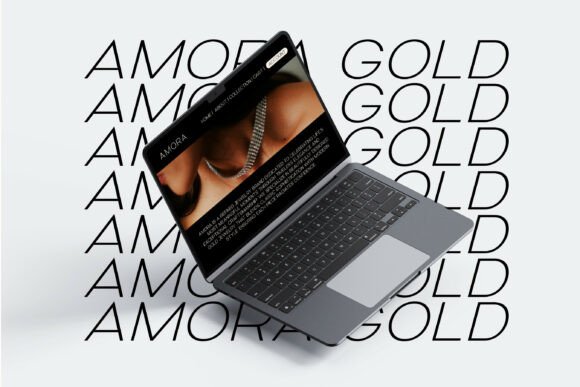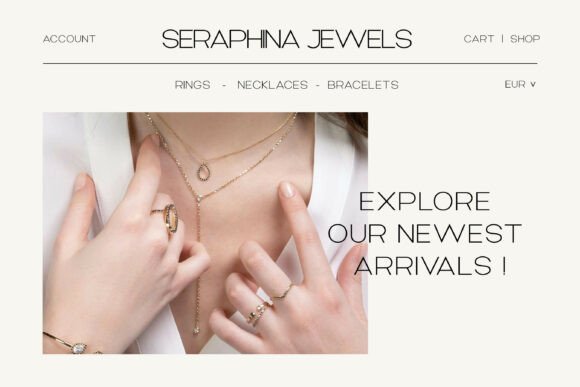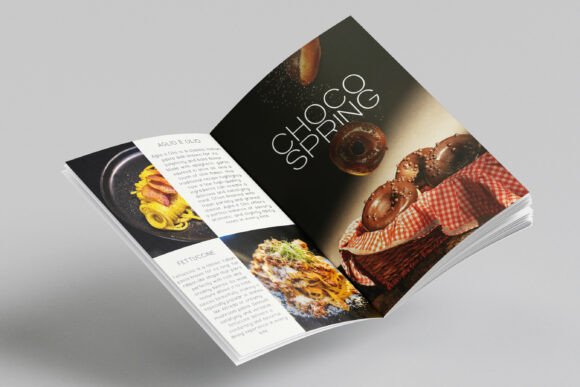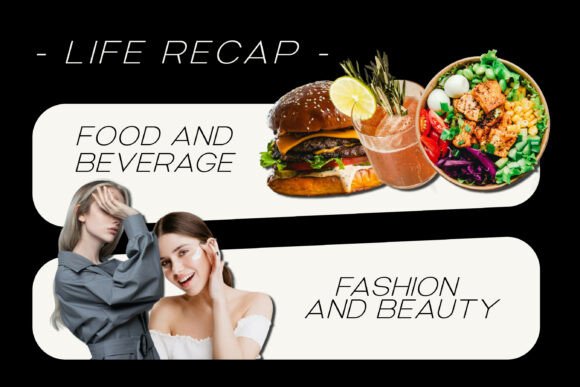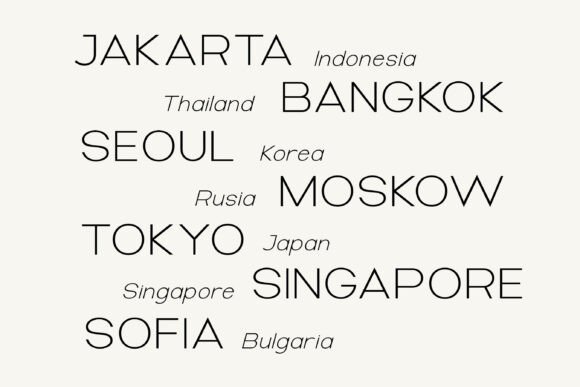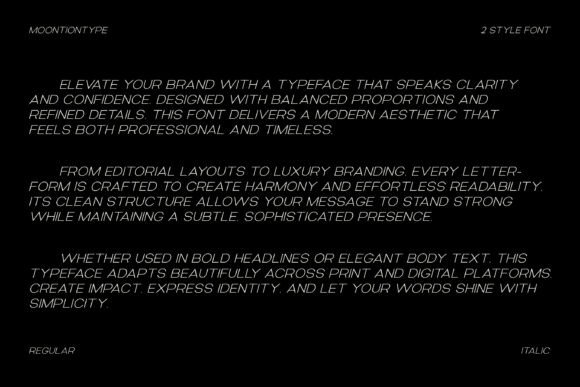
Introduction to Moventra Font
As a designer, have you ever found yourself staring at a blank canvas, eager to bring your creative vision to life? The perfect font can make all the difference, elevating your project from ordinary to extraordinary. That’s where Moventra Font comes in – a stunning sans serif typeface designed to add a touch of modern luxury to your work.
With its sleek lines, refined curves, and minimalist aesthetic, Moventra Font is the ultimate design resource for high-end branding and sophisticated designs. Whether you’re crafting a luxury logo, designing a chic website header, or creating a stunning editorial layout, this font is sure to impress. And with its clean lines and transparent background, it’s the perfect choice for designers who value high quality and attention to detail.
In this article, we’ll delve into the world of Moventra Font, exploring its features, benefits, and uses. We’ll also take a closer look at what makes this font so valuable for designers, and why it’s a must-have for any creative project.
Key Features of Moventra Font
- High-quality design resource ideal for creative projects, offering a unique and stylish touch.
- Transparent background, allowing for seamless integration with various design elements.
- Includes a wide range of glyphs and characters, making it suitable for various languages and design applications.
- Designed with a modern aesthetic, the Moventra Font is perfect for contemporary design projects, from branding to digital art.
Honest Review: Moventra Font
I recently had the chance to work with the Moventra Font, and I’m excited to share my honest thoughts on this design resource. The Moventra Font is a high-quality font perfect for creative projects that require a unique and modern touch.
What works well: ✨ The Moventra Font has a clean and minimalist design that makes it perfect for digital designs, such as infographics, presentations, and web pages. The font also includes a transparent background option, which makes it easy to use in various design scenarios. The free download option is also a big plus for designers on a budget.
- High-quality design perfect for creative projects
- Clean and minimalist design
Limitations: ⚠️ The Moventra Font is limited to a single style, which may not be suitable for projects that require multiple font styles. Additionally, the font may not be as versatile as some other design resources.
Overall, the Moventra Font is a great design resource for designers who are looking for a high-quality, modern font for their creative projects. While it has some limitations, its clean design and transparent background option make it a great addition to any design library.